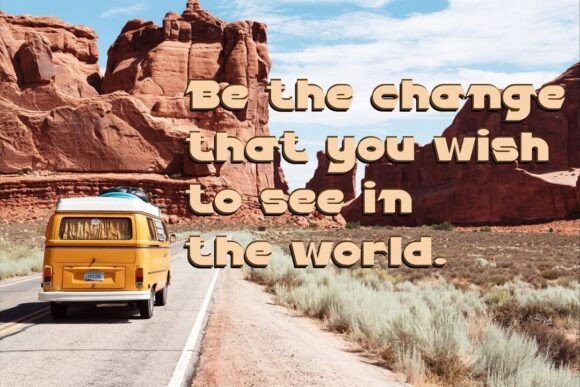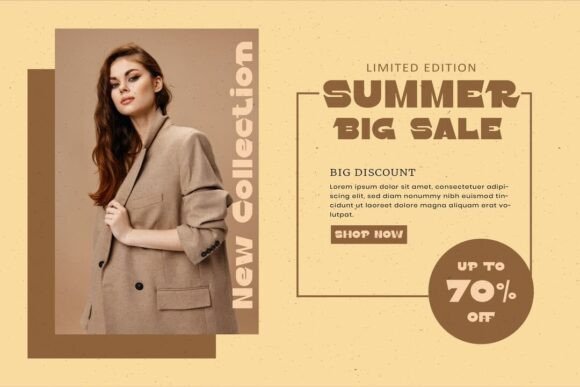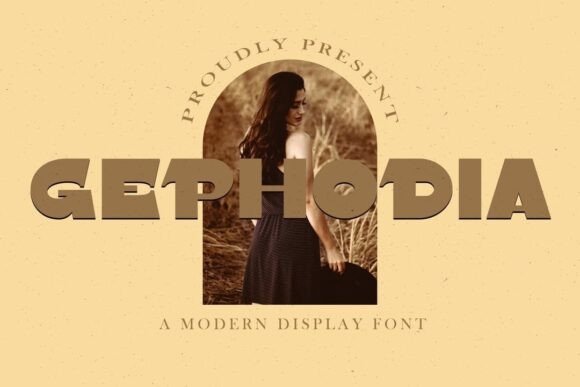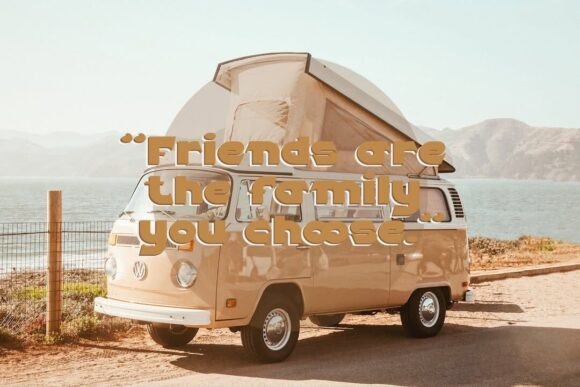
Gephodia Font: A Unique Vintage Font for Modern Logo Design
About the Gephodia Font
Meet Gephodia Font, a stunning font that brings a touch of elegance and professionalism to any design. Introducing Gephodia, an enigmatic Vintage Display Font that seamlessly blends tradition and sophistication. Lending an original and inventive twist to the vintage design realm, its distinctive form and font structure effortlessly enhance your creative pursuits. Whether you are channeling age-old charm or modern aesthetics, Gephodia offers an unparalleled solution to meet your design requirements. So, come and embrace a vintage visual journey with Gephodia, and let your creativity tacitly steal the show.